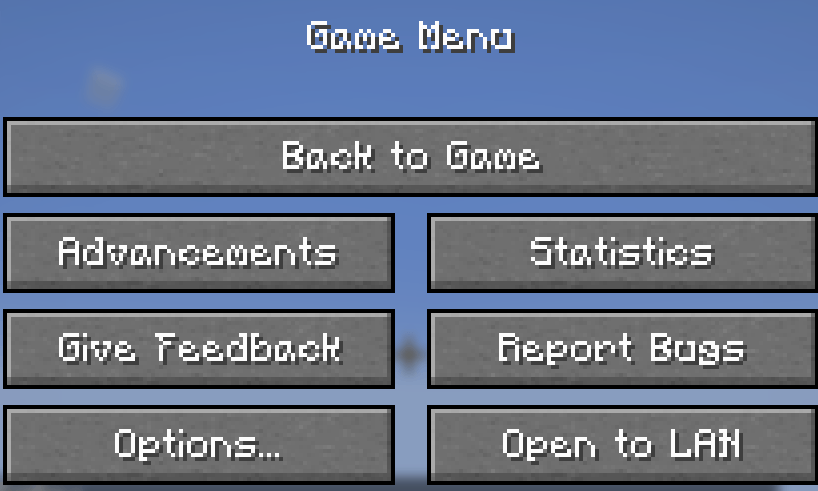
Fantastic Fantasy Font (16x)
A font that aims to add more of a fantasy feel.
𝕱𝖆𝖓𝖙𝖆𝖘𝖙𝖎𝖈 𝕱𝖆𝖓𝖙𝖆𝖘𝖞 𝕱𝖔𝖓𝖙
A Font that aims to add a Fantasy/Medival feel to the game while still keeping a vanilla feel by using the base (16x) format
Information: this mod is made for mainly medival, fantasy, cozy builds. Meaning it might not suit all players, although it coult still be used if you want to spice things up a little.
What the font will make your game look like: